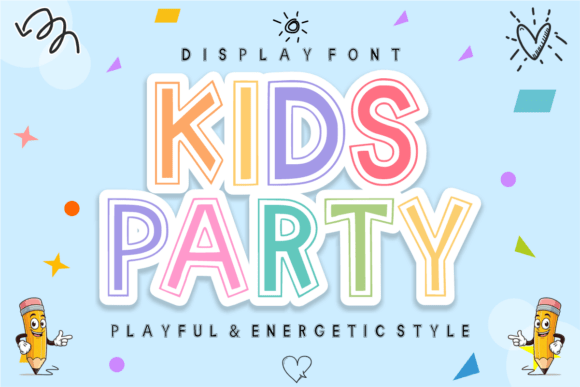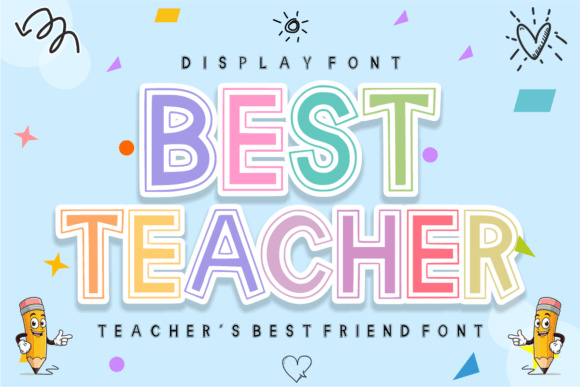
🎉 Unleash Your Creativity with Comic Books Font: A Playful & Vibrant Kids Display Font 🎉
Are you a designer, crafter, or DIY enthusiast looking for a font that can add a touch of excitement and playfulness to your creative projects? Look no further than the Comic Books Font! 💥 This high-energy display font is designed to bring your designs to life with its unique double-outline style, bold structure, and “hollow” inline detail.
What is Comic Books Font?
Comic Books Font is a specially designed display font that captures the essence of classic comic adventures while maintaining a clean, modern, and playful look. Its unique double-outline style gives it a distinctive appearance that’s sure to grab attention. The font’s bold structure and “hollow” inline detail make it perfect for layering colors, creating vibrant stickers, or designing catchy headlines for kid-centric branding.
Key Features of Comic Books Font
- Unique Double-Outline Style: The font’s double-outline style gives it a distinctive appearance that’s reminiscent of classic comic books.
- Bold Structure: The font’s bold structure makes it perfect for creating eye-catching headlines and titles.
- “Hollow” Inline Detail: The font’s “hollow” inline detail allows for layering colors and creating vibrant designs.
- Clean, Modern, and Playful Look: The font’s clean, modern, and playful look makes it perfect for kid-centric branding and designs.
Use Cases for Comic Books Font
Comic Books Font is perfect for a variety of design projects, including:
- Kid-Centric Branding: Use the font to create catchy headlines and titles for kid-friendly products, services, and websites.
- Vibrant Stickers: Use the font to create colorful and eye-catching stickers for kids’ parties, events, and activities.
- Comic Book-Inspired Art: Use the font to create comic book-inspired art, including illustrations, graphics, and animations.
- Playful Posters: Use the font to create playful posters for kids’ events, activities, and promotions.
Why Choose Comic Books Font?
There are many reasons why you should choose Comic Books Font for your design projects. Here are a few:
- Unique and Eye-Catching: The font’s unique double-outline style and bold structure make it stand out from other fonts.
- Versatile: The font is versatile and can be used for a variety of design projects, from kid-centric branding to comic book-inspired art.
- High-Quality: The font is high-quality and comes with a range of characters, including letters, numbers, and punctuation marks.
Tips for Using Comic Books Font
Here are a few tips for using Comic Books Font:
- Experiment with Colors: Experiment with different colors and layering techniques to create vibrant and eye-catching designs.
- Use it Boldly: Use the font boldly and don’t be afraid to make it big and eye-catching.
- Mix and Match: Mix and match the font with other fonts and design elements to create unique and interesting designs.
| Font Name | Comic Books Font |
| Author | Sahira Studio |
In conclusion, Comic Books Font is a playful and vibrant kids display font that’s perfect for designers, crafters, and DIY enthusiasts. Its unique double-outline style, bold structure, and “hollow” inline detail make it perfect for creating eye-catching headlines, vibrant stickers, and comic book-inspired art. With its versatility, ease of use, and high-quality design, Comic Books Font is a must-have for anyone looking to add a touch of excitement and playfulness to their design projects.